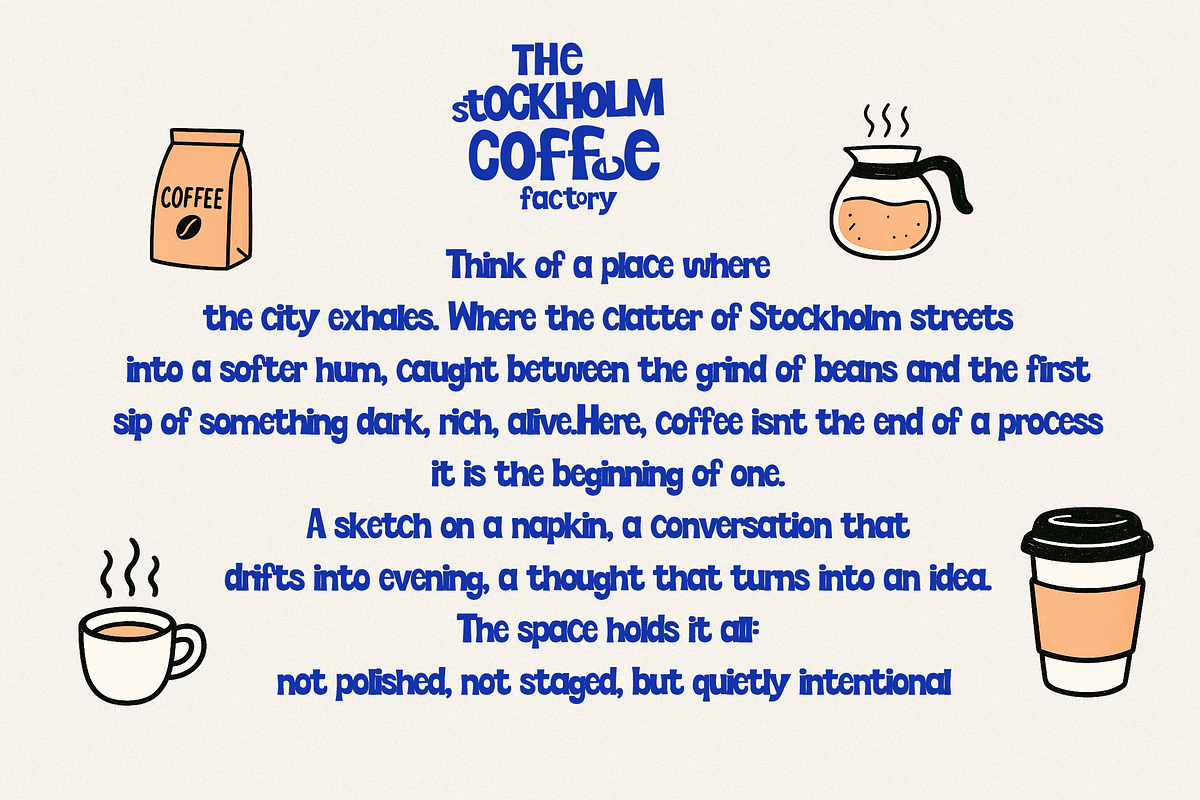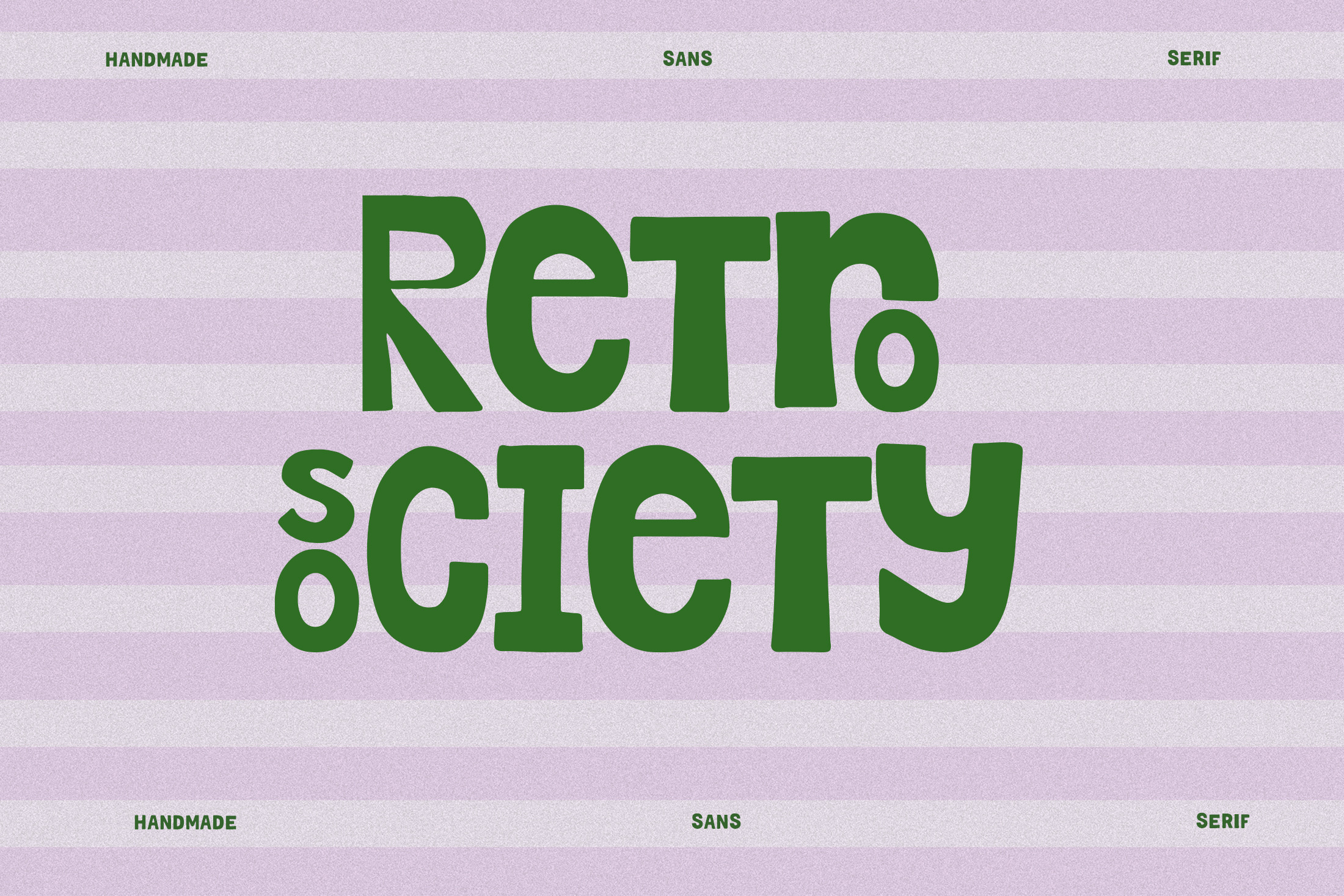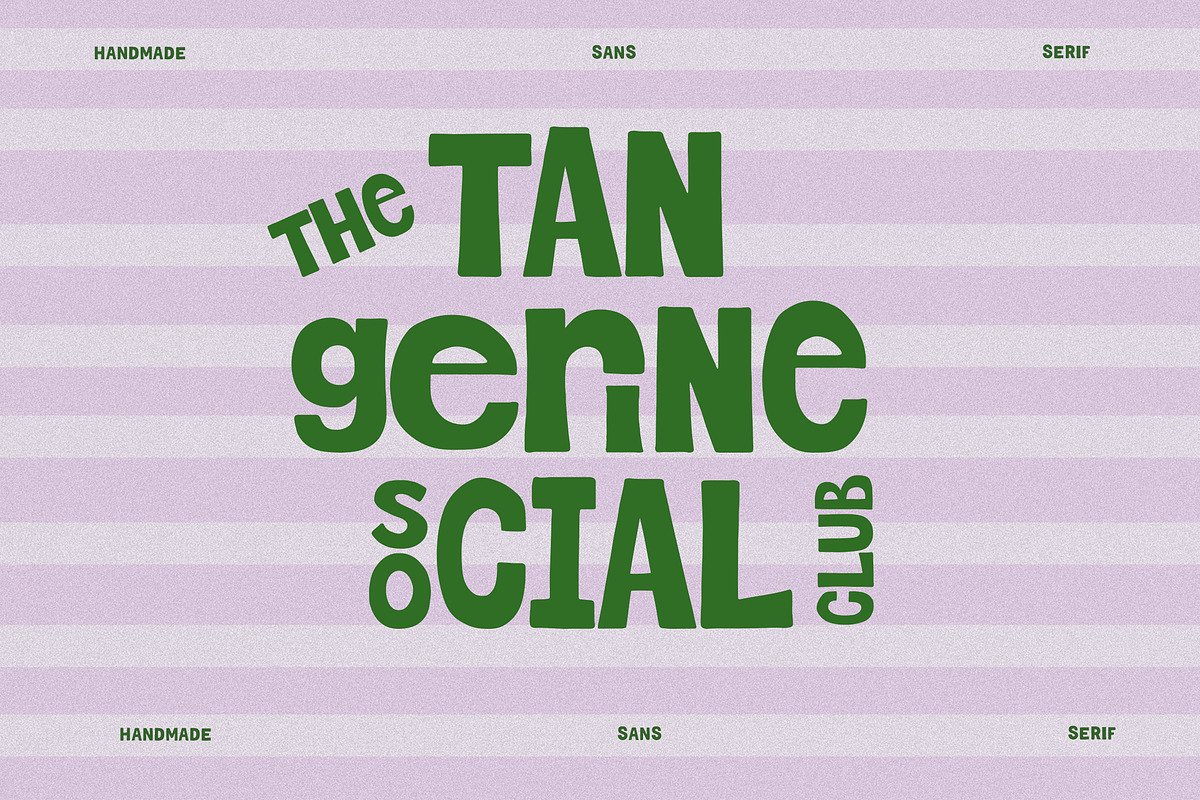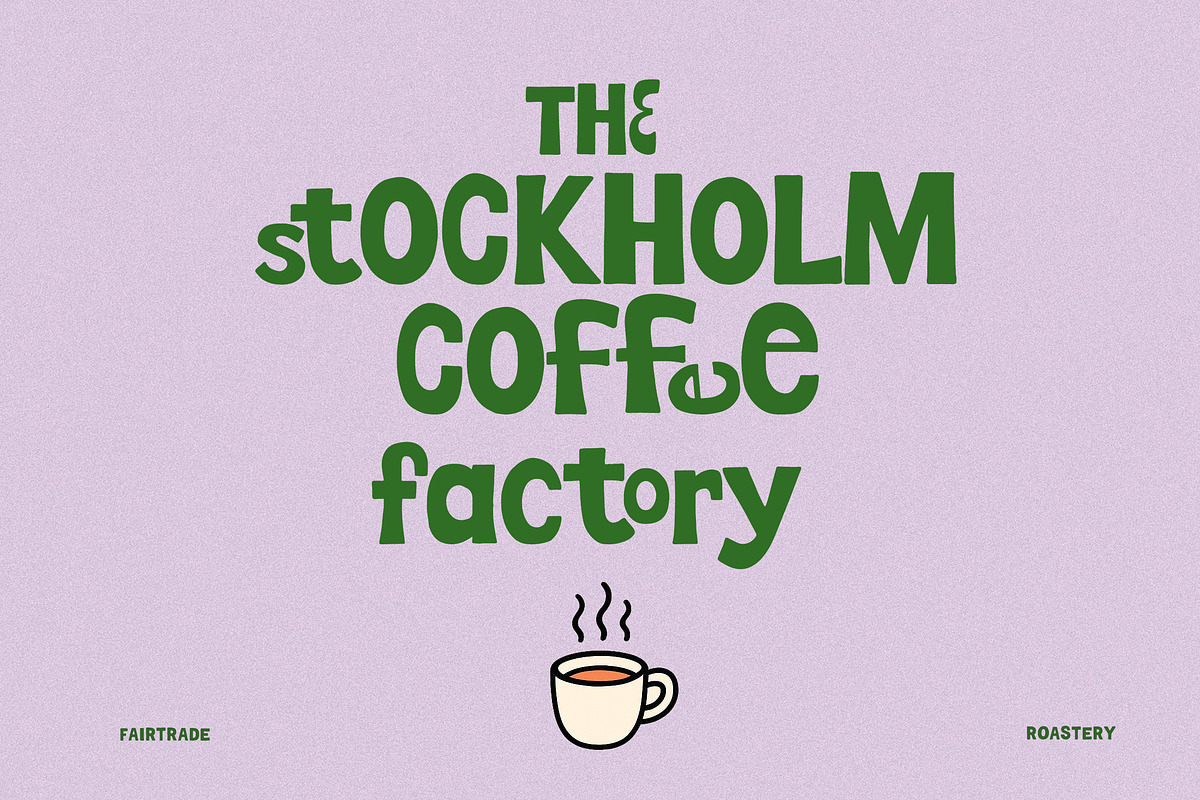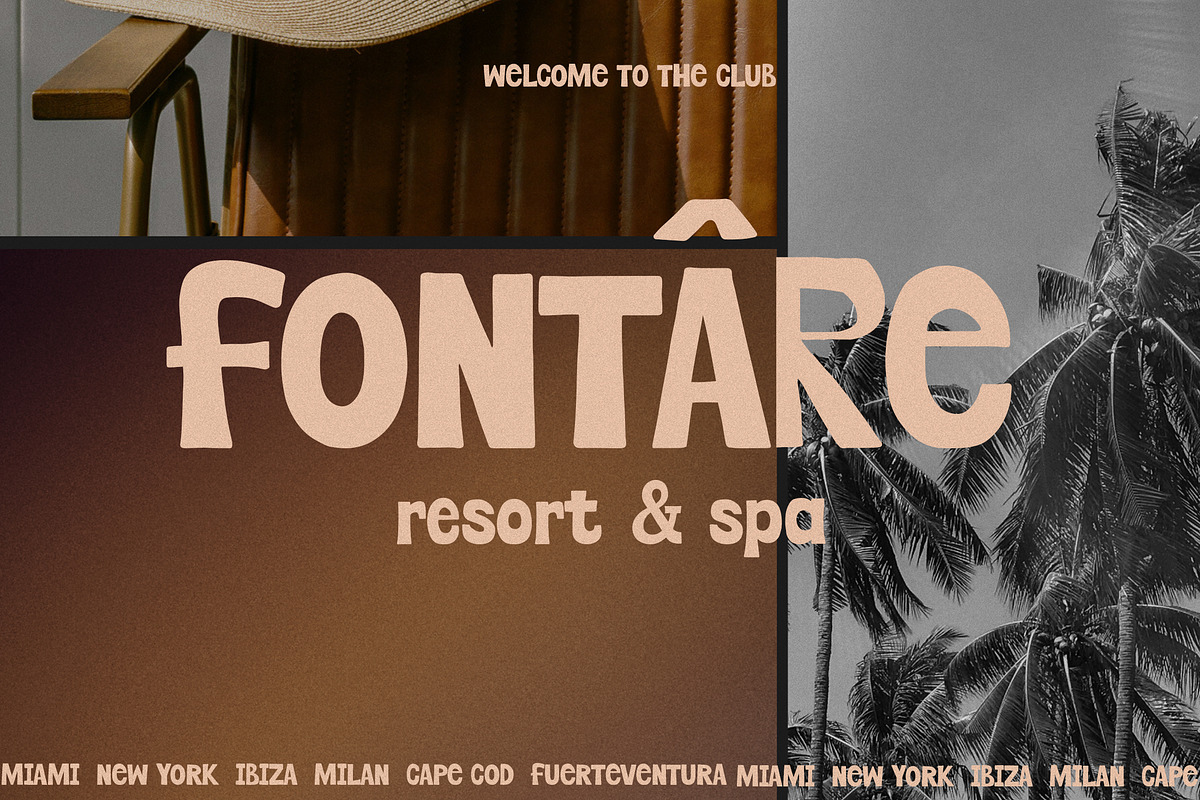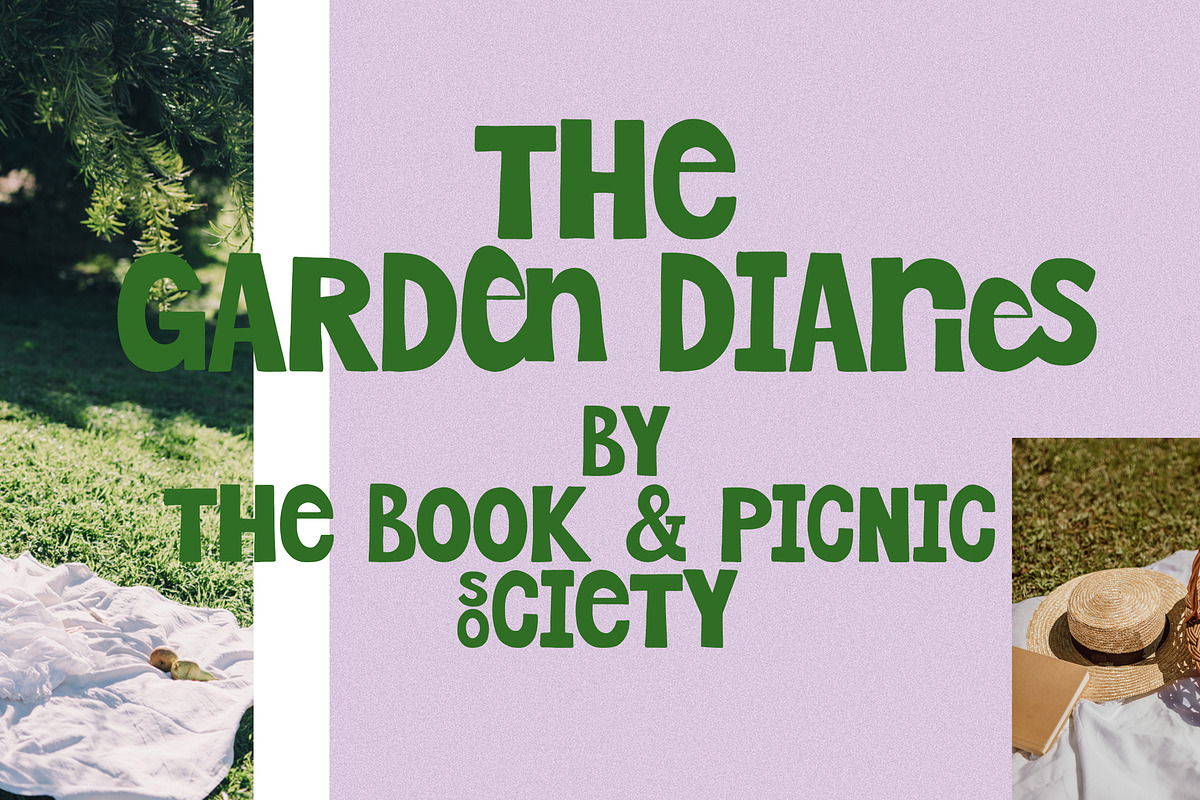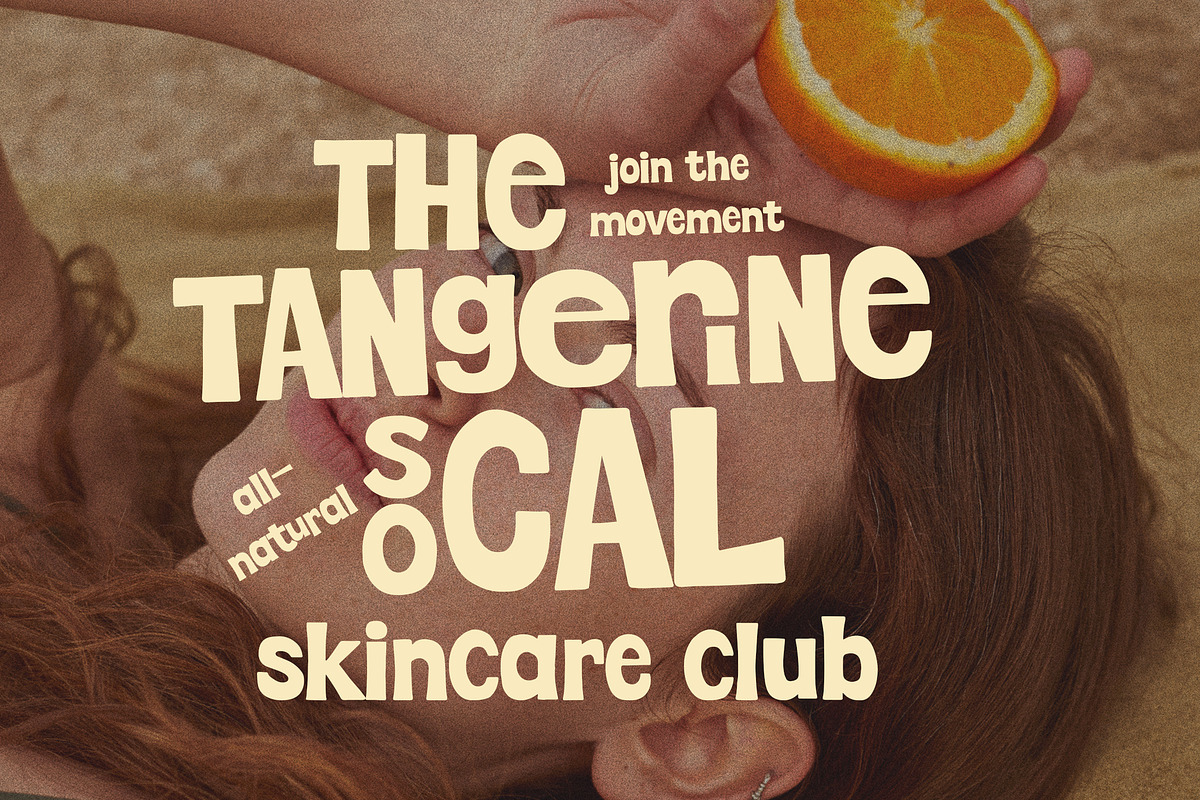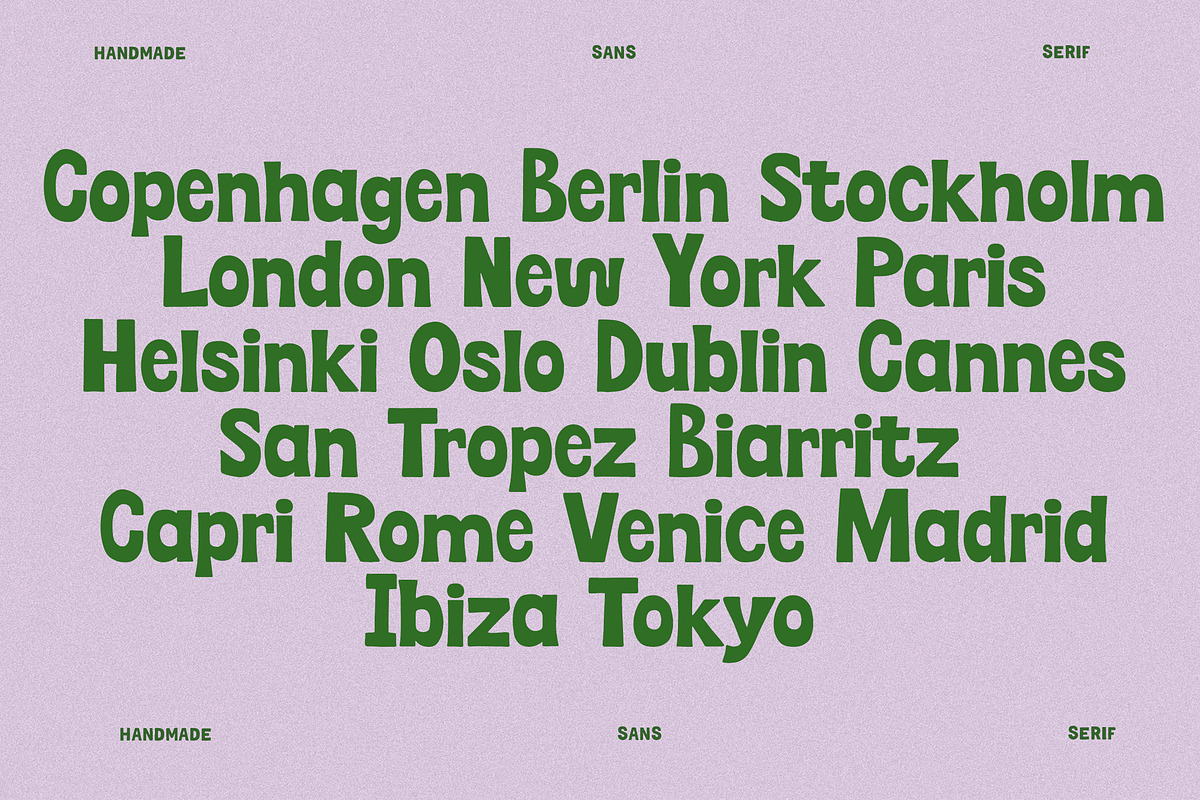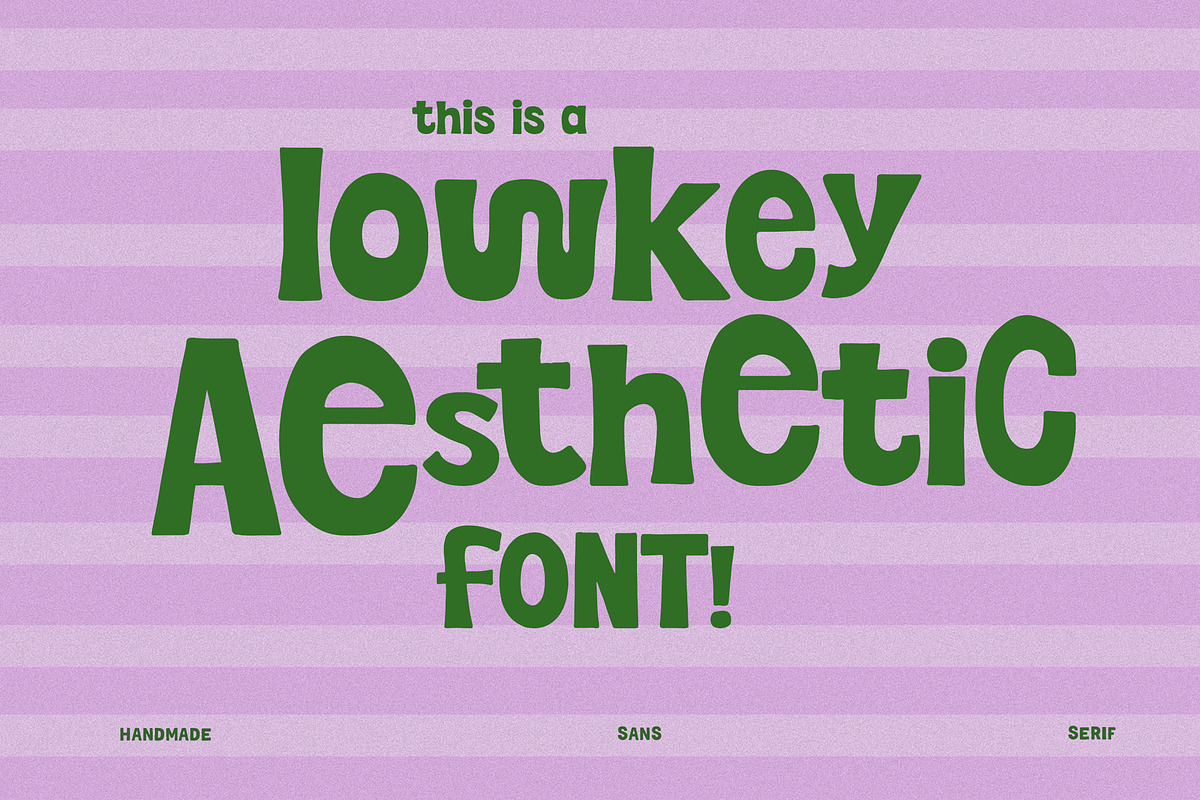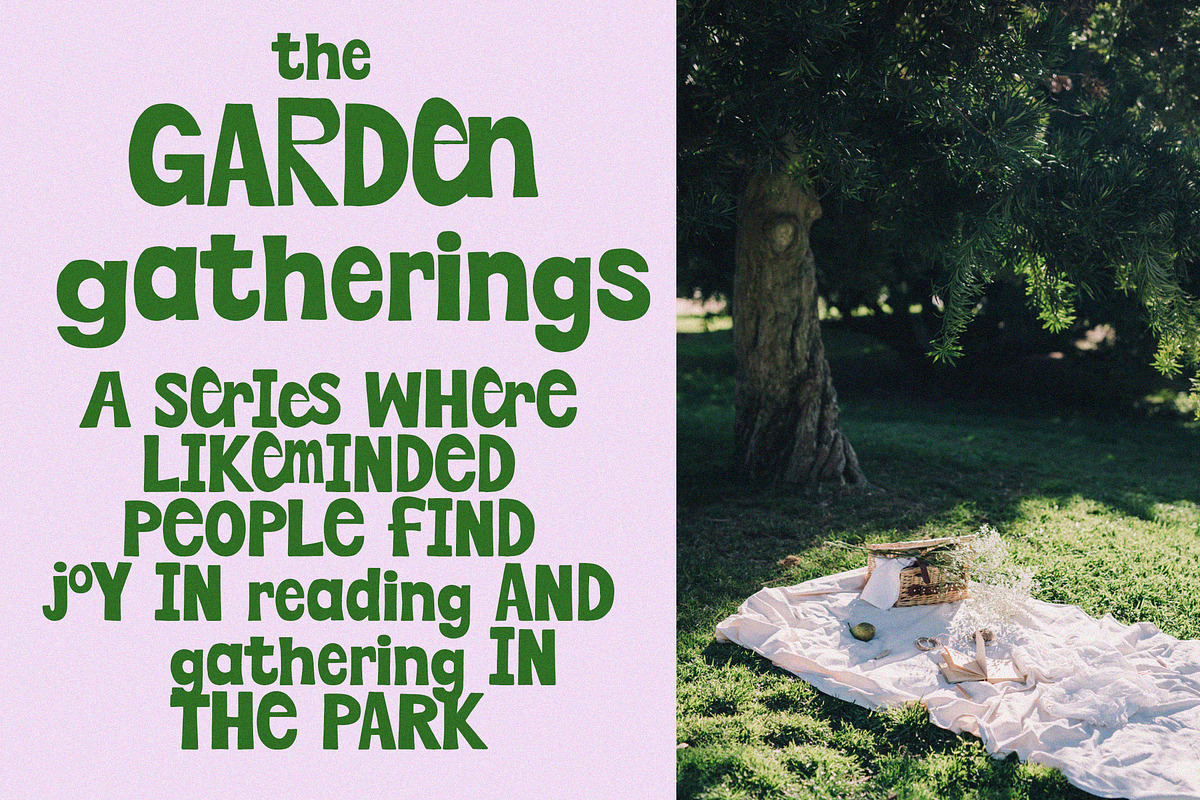
Quirky Bold Sans Hand Lettered Font
Meet Retro Society, a quirky handmade font that stops the scroll. Bold, unexpected, and dripping with personality, this typeface breaks the rules with its playful mix of uppercase and lowercase letters. Creative freedom and an artsy vibe - think Scandi cafés, TikTok trends, retro posters, and cool lifestyle brands. Stunning alternates and numerous ligatures transform every word, so that no letter looks the same. For a truly handcrafted, one-of-a-kind character!
With chunky block forms standing beside letters that curve with dynamic energy, Retro Society is never boring. Perfect for posters, social media graphics, merch, packaging, and branding that demands attention.